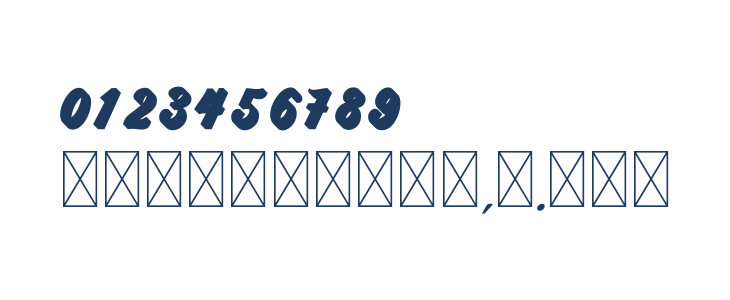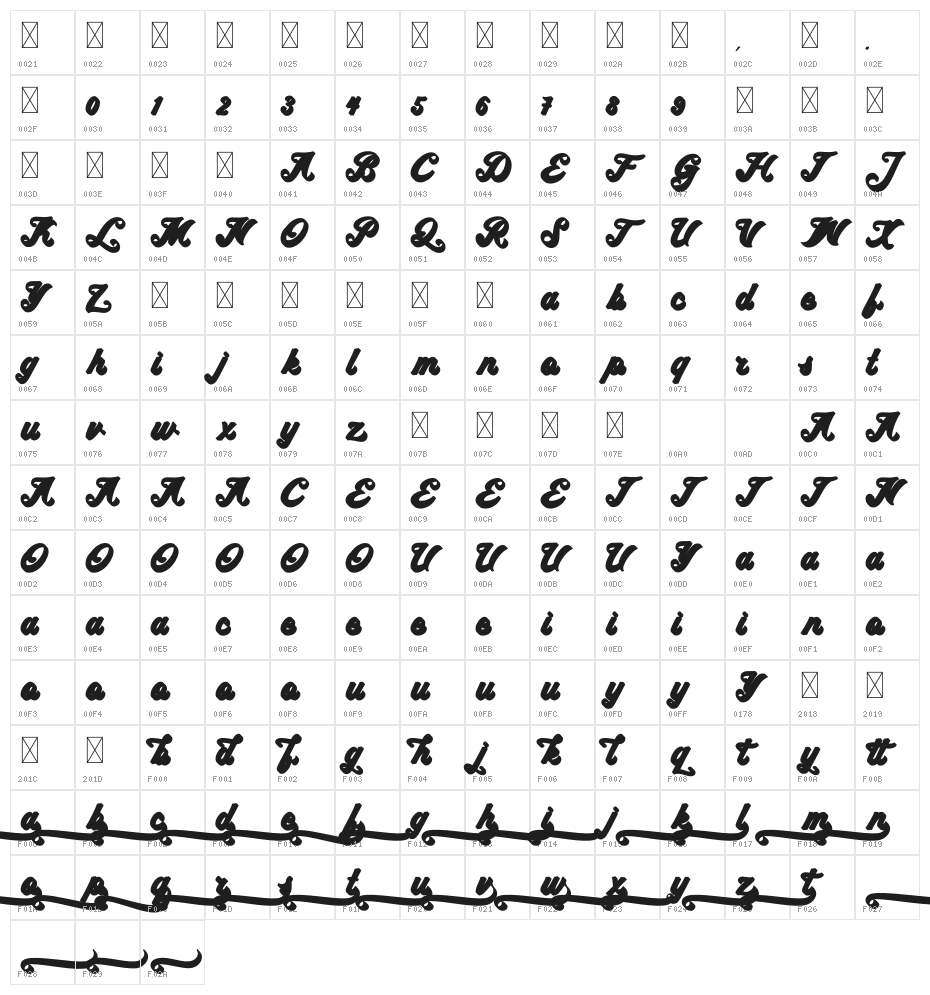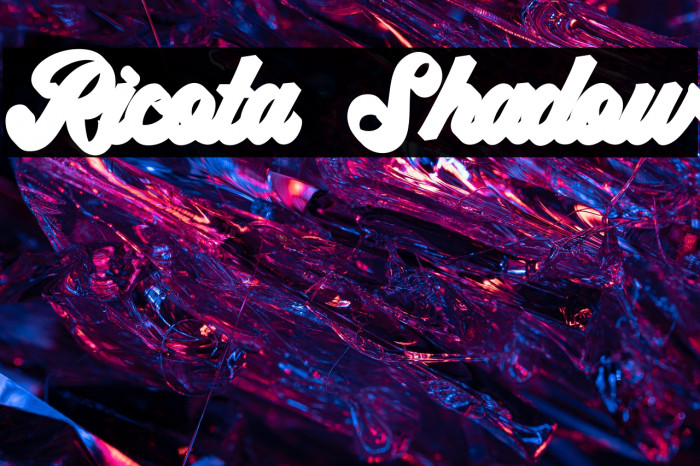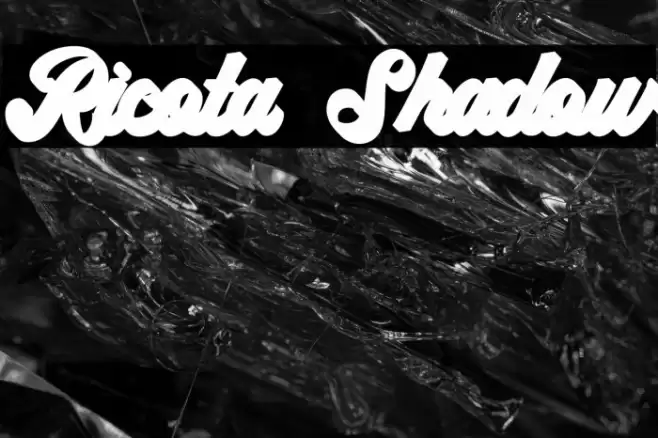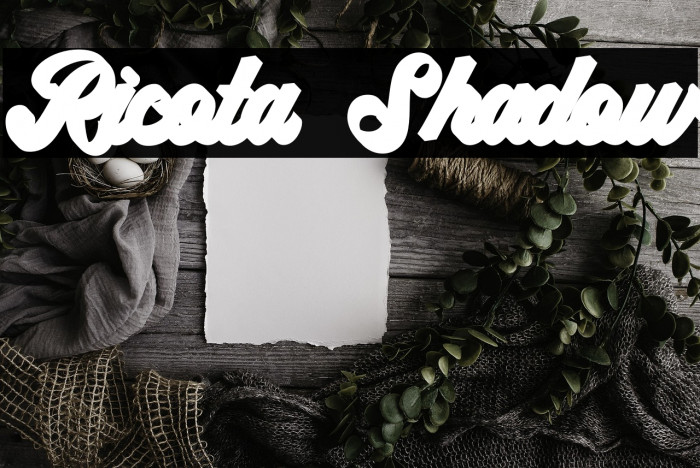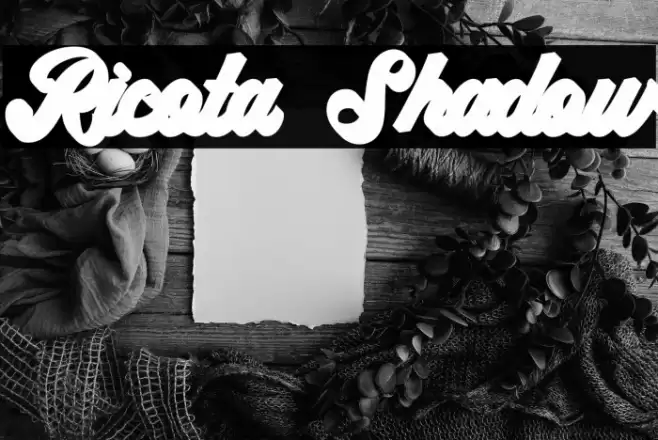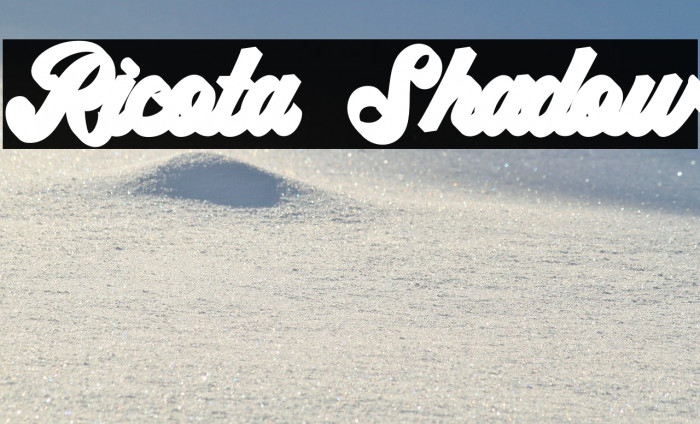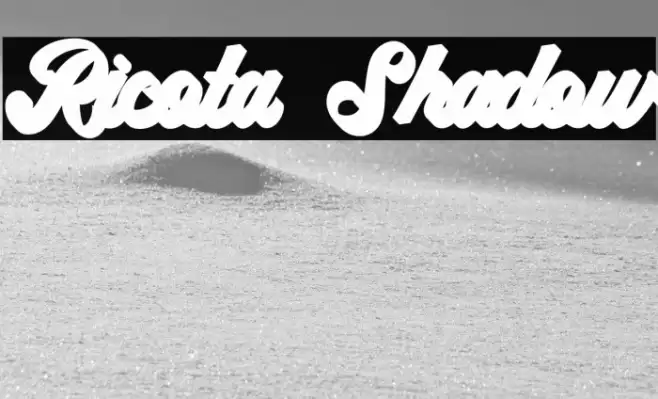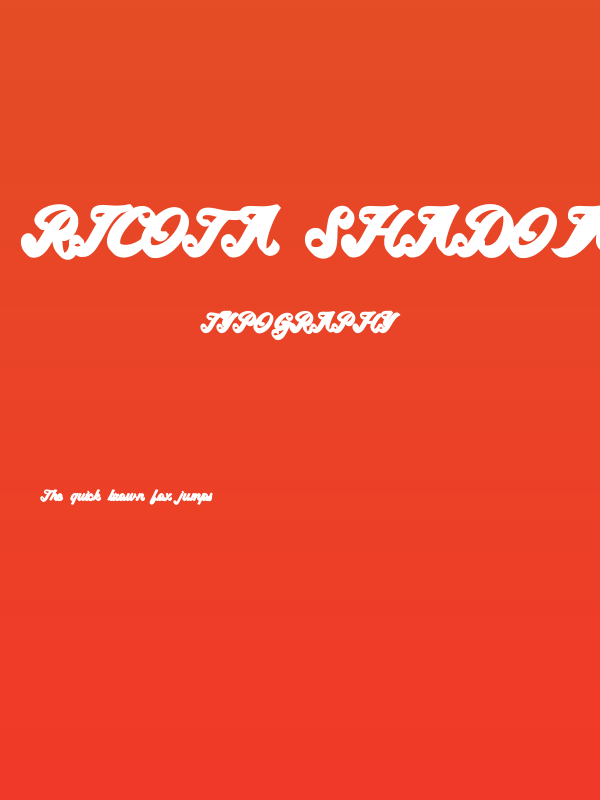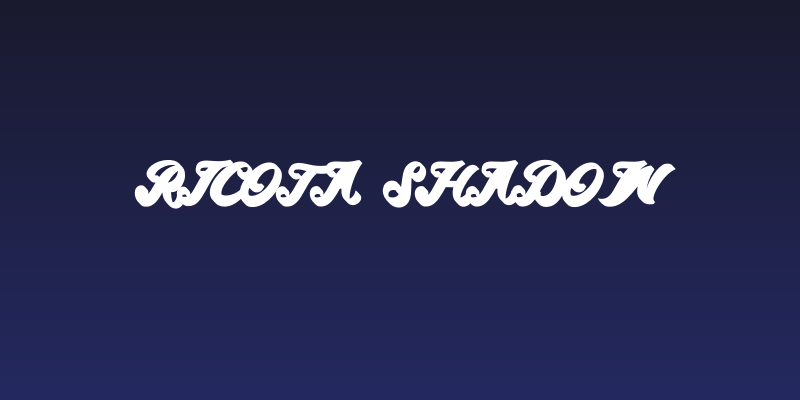
Ricota Shadow Font
Ricota Shadow Description
This font features a bold, shadowed script style that exudes a sense of elegance and flair. The characters are connected, creating a flowing, cursive appearance that is both dynamic and sophisticated. The bold strokes are complemented by a shadow effect, adding depth and a three-dimensional quality to the text. This style is reminiscent of vintage signage and calligraphy, making it ideal for projects that require a touch of classic charm. The font's design is highly decorative, with each letter exhibiting unique flourishes and curves, enhancing its visual appeal.
| Use Case | Logos, Decorative text, Invitations |
| Proposed Projects | Ideal for wedding invitations, vintage-themed posters, branding, and logo design. |